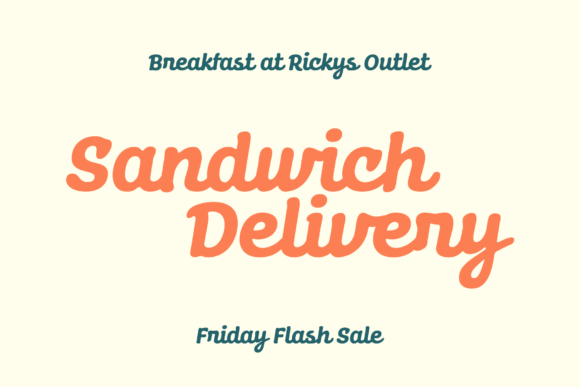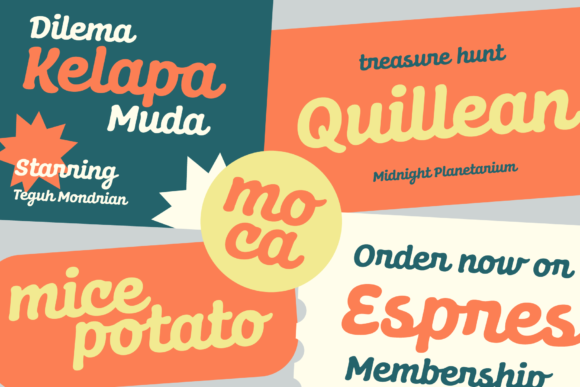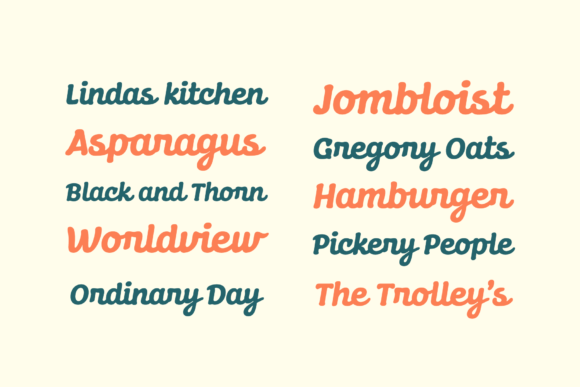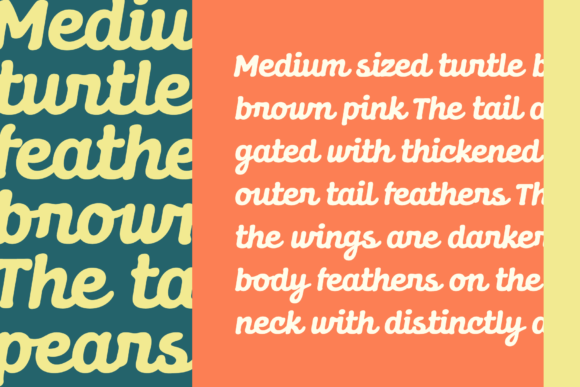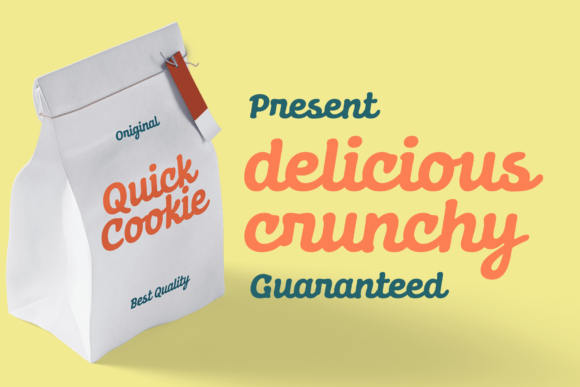
Dunley Font
About Dunley Font
Dunley is a charming and expressive paint brush script font with a thick lettered style. Its unique brush strokes and playful character make it an ideal choice for various creative projects. Whether you’re crafting, designing digitally, creating presentations, or making greeting cards, Dunley brings a touch of sweetness and personality to your work.
With its thick lettering, Dunley stands out and makes a bold statement. The brush strokes are visible, giving the font a hand-painted and textured appearance. This adds a sense of authenticity and warmth to your designs, making them more engaging and appealing to the eye.
The versatility of Dunley allows it to be used across different design applications. It works well for crafting projects, such as creating handmade cards, scrapbooking, or personalized gifts. The thick lettering adds a playful and artistic touch to your crafts, making them unique and eye-catching.
In digital design, Dunley can be used for various purposes, including logo design, branding, social media graphics, and website headers. Its thick lettering gives your designs a bold and confident look, grabbing attention and leaving a lasting impression on viewers.
Presentations can also benefit from Dunley’s charming style. Use it for titles, headlines, or slide captions to add visual interest and personality to your slides. Dunley’s thick lettering ensures that your text stands out and adds a touch of creativity to your presentation.
When it comes to greeting card making, Dunley shines with its playful and expressive strokes. Use it to create handwritten messages, personalized sentiments, or decorative elements on your cards. The thick lettering adds a tactile feel to the design, making the card feel more special and heartfelt.
Overall, Dunley is a versatile and delightful font that brings a sweet and thick lettered style to your creative projects. Its paint brush script appearance adds a touch of handmade charm and authenticity to your designs. Whether you’re crafting, designing digitally, presenting, or making greeting cards, Dunley is a perfect choice to add that extra touch of creativity and personality.